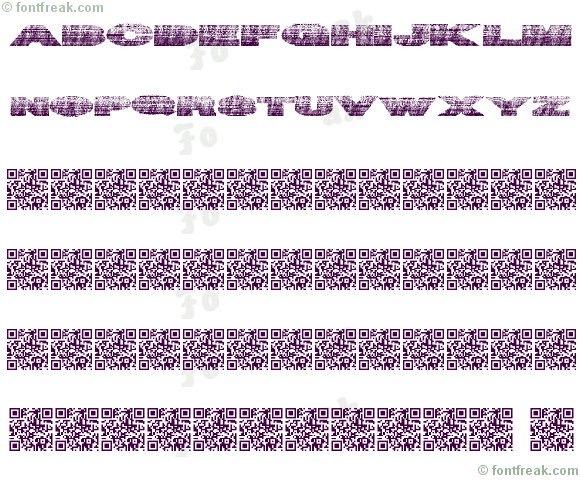
TigerNuts
Introducing the TigerNuts font by Xerographer Fonts, a striking display typeface that combines boldness with a unique character. This font falls under the decorative category, showcasing an adventurous spirit that is sure to capture attention. Its distinctive visual characteristics include varying stroke weights that create an eye-catching contrast, giving it a dynamic quality. The spacing is thoughtfully designed to enhance readability while maintaining a playful aesthetic, making it suitable for a wide range of applications.
TigerNuts is particularly effective for creative projects that aim to stand out. It shines in settings like movie posters, where its bold presence can draw viewers in. Additionally, this font is perfect for quirky restaurant menus, adding a touch of personality to the dining experience. It also lends itself well to event flyers and promotional materials, helping businesses make a memorable impact. Graphic designers and content creators will find this font especially appealing as it adds a unique flair to their projects.
Ideal for small business owners looking to establish a distinctive brand identity, TigerNuts offers a fresh alternative to more traditional typefaces. Its sense of fun and originality makes it a great choice for those seeking to inject personality into their work.